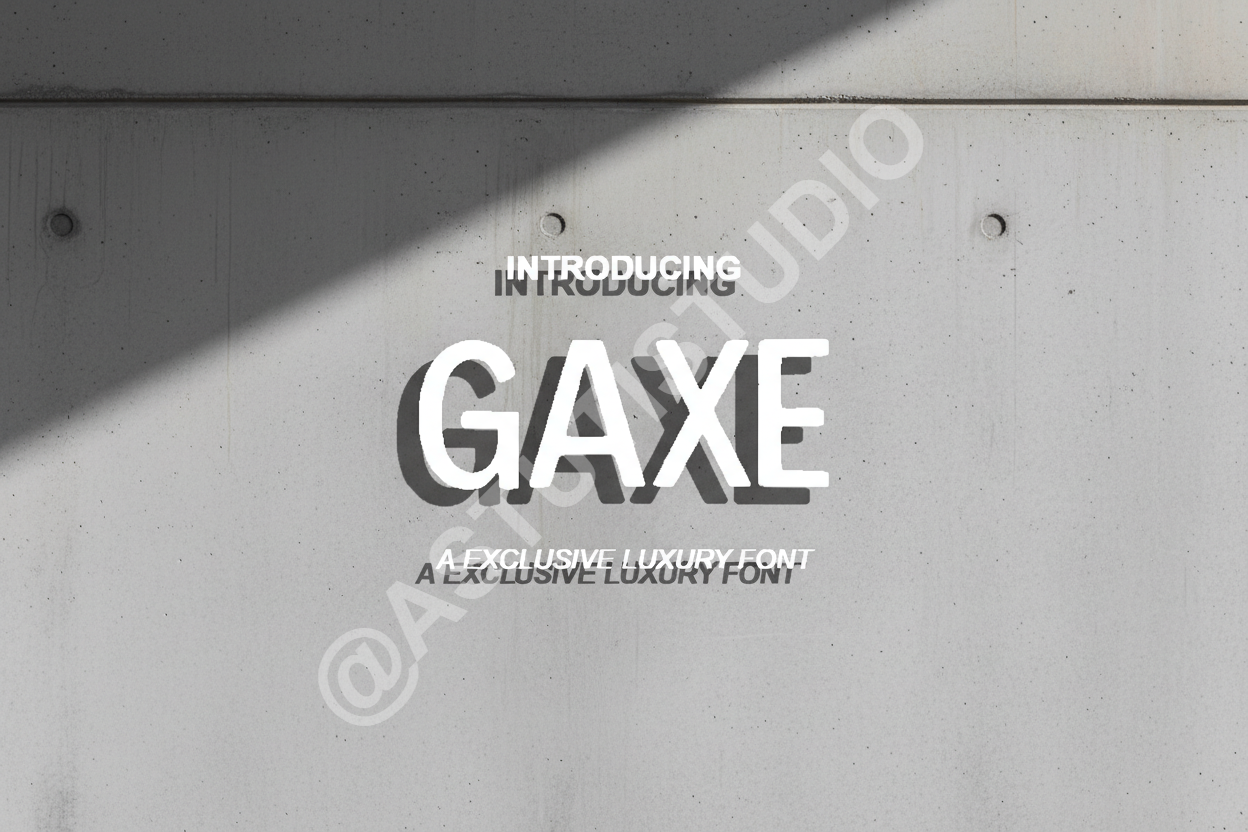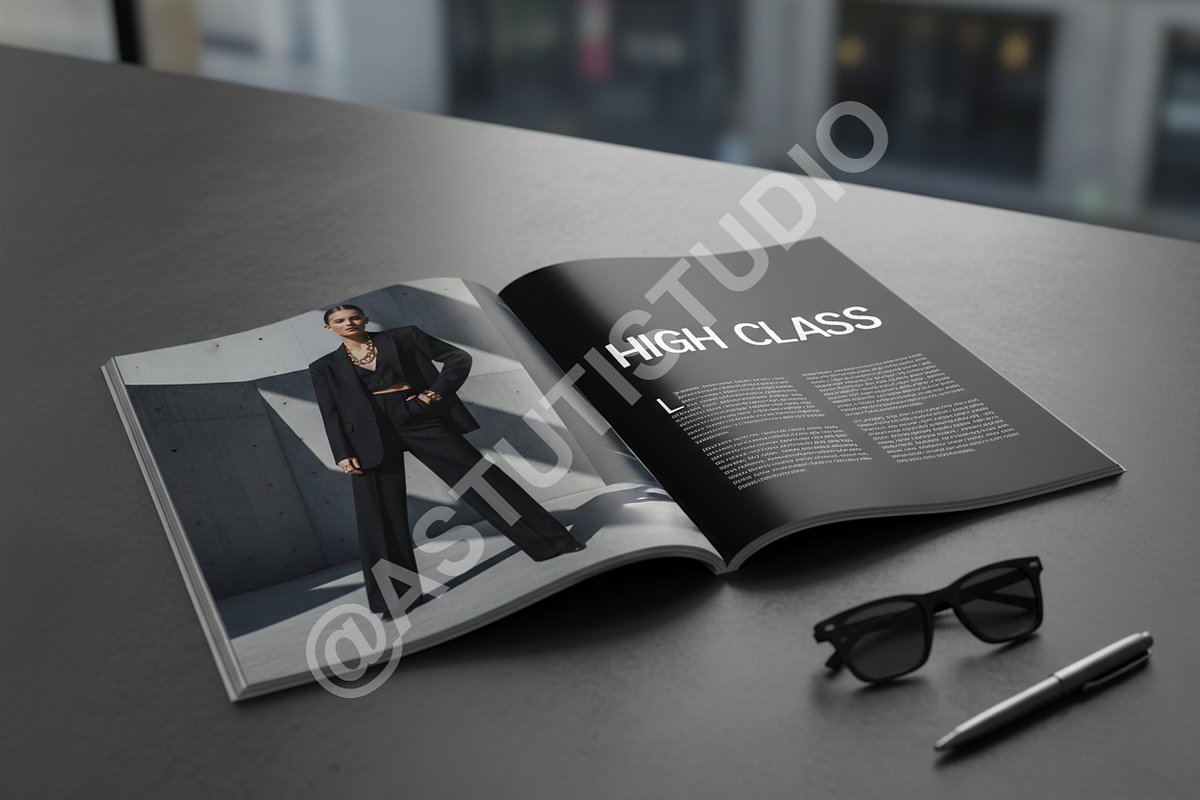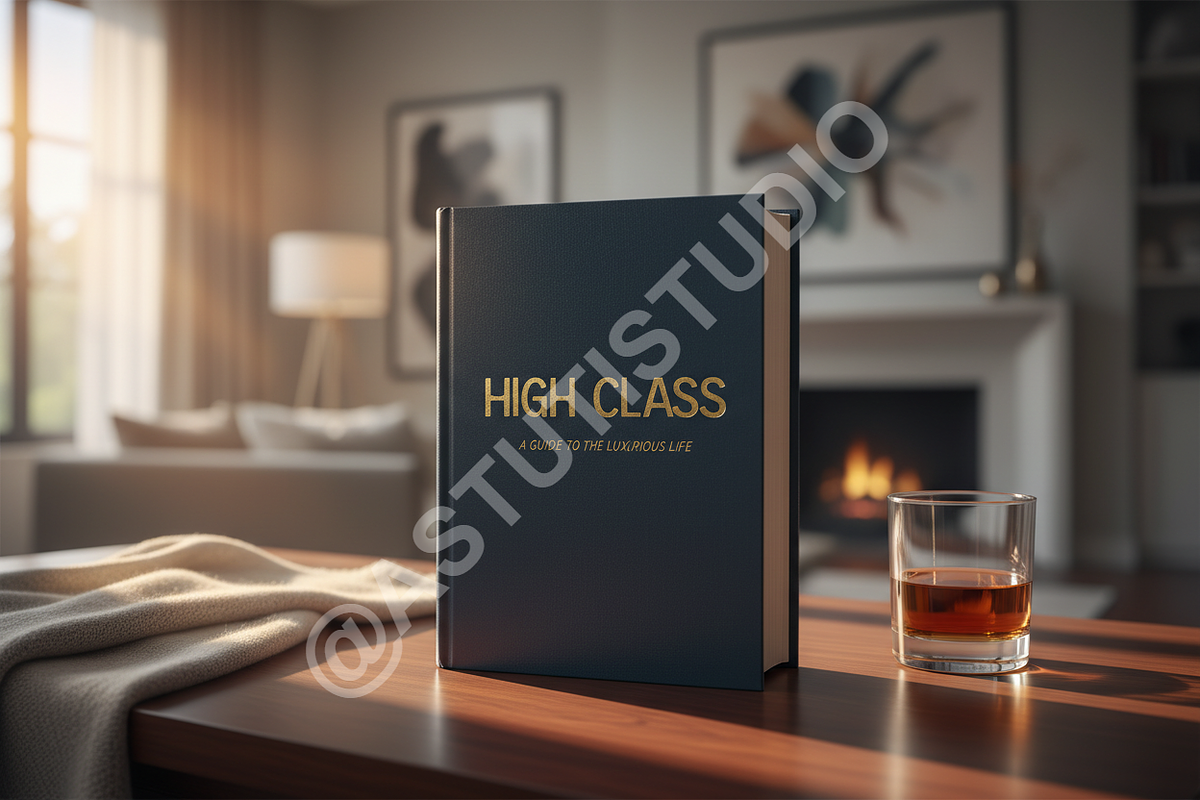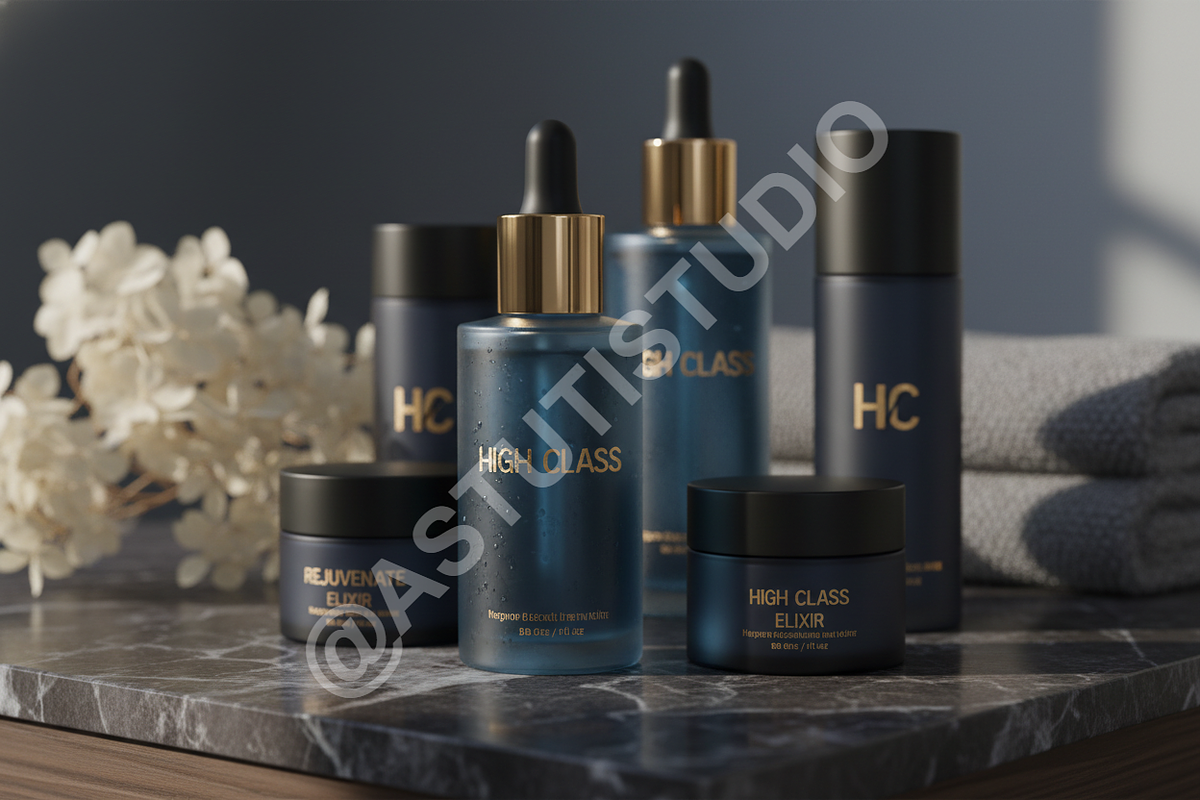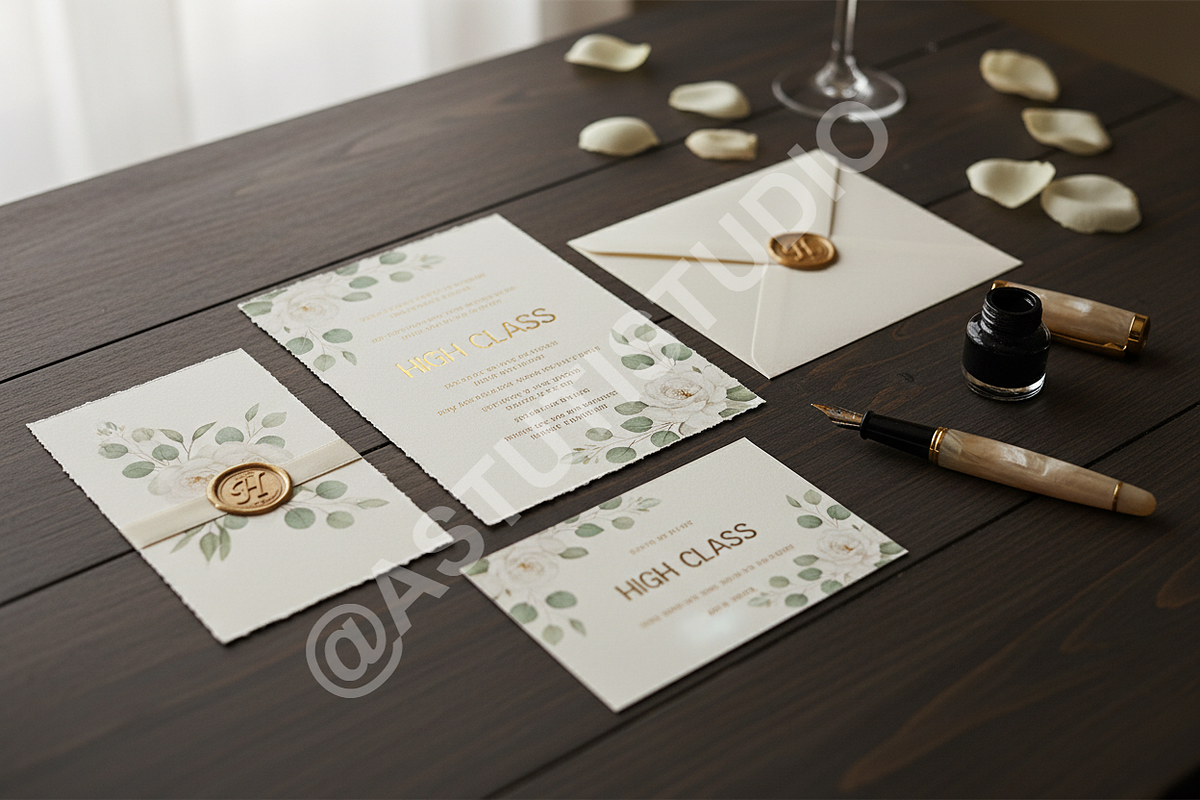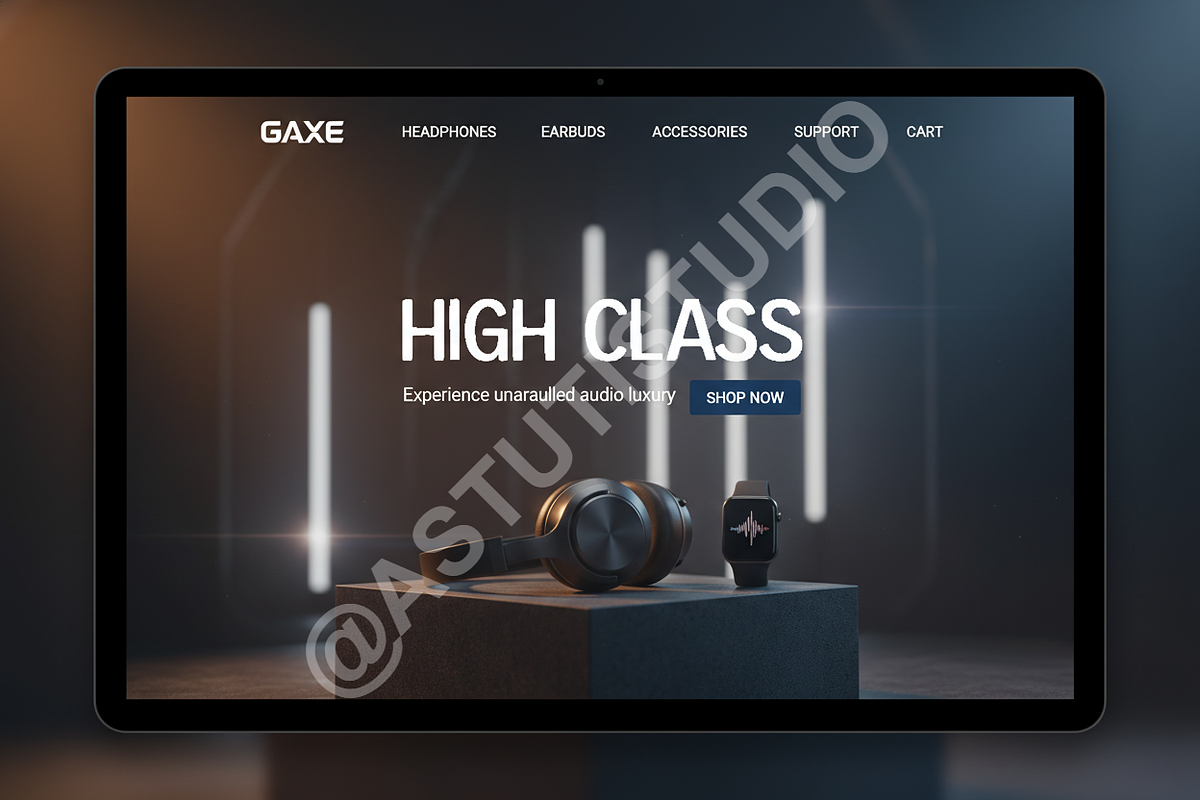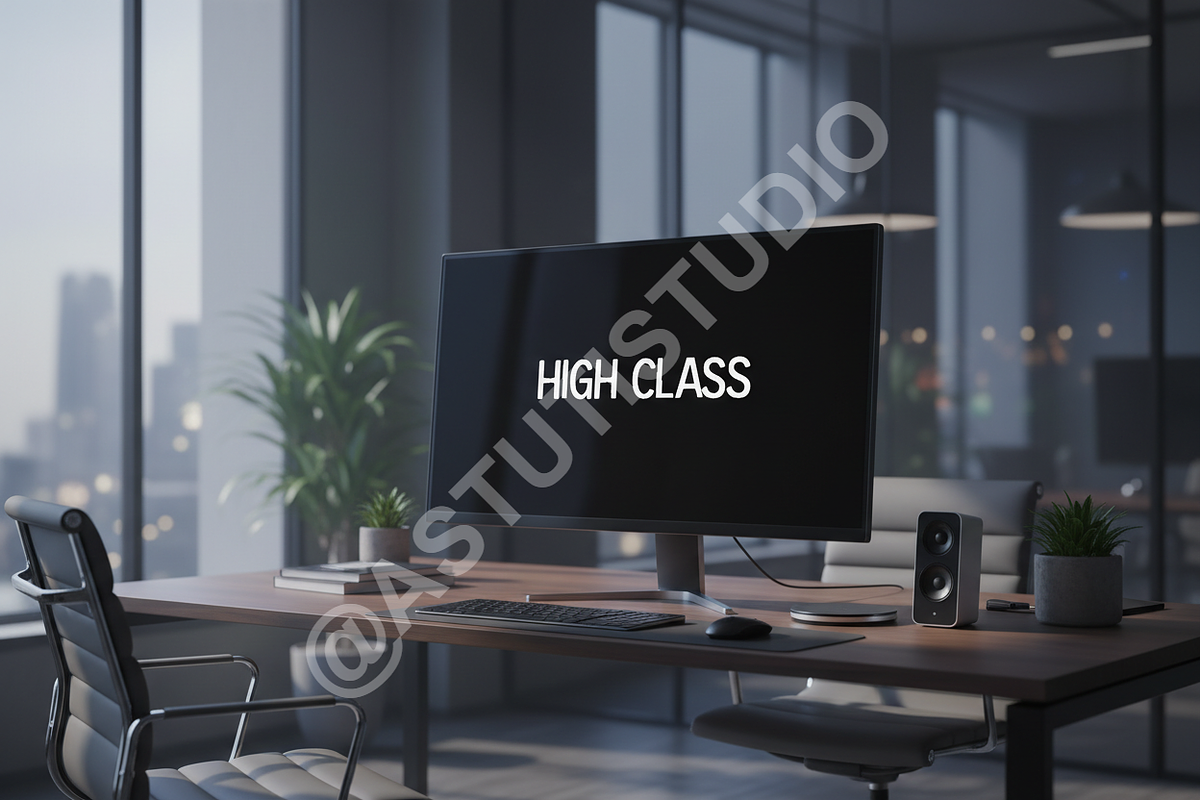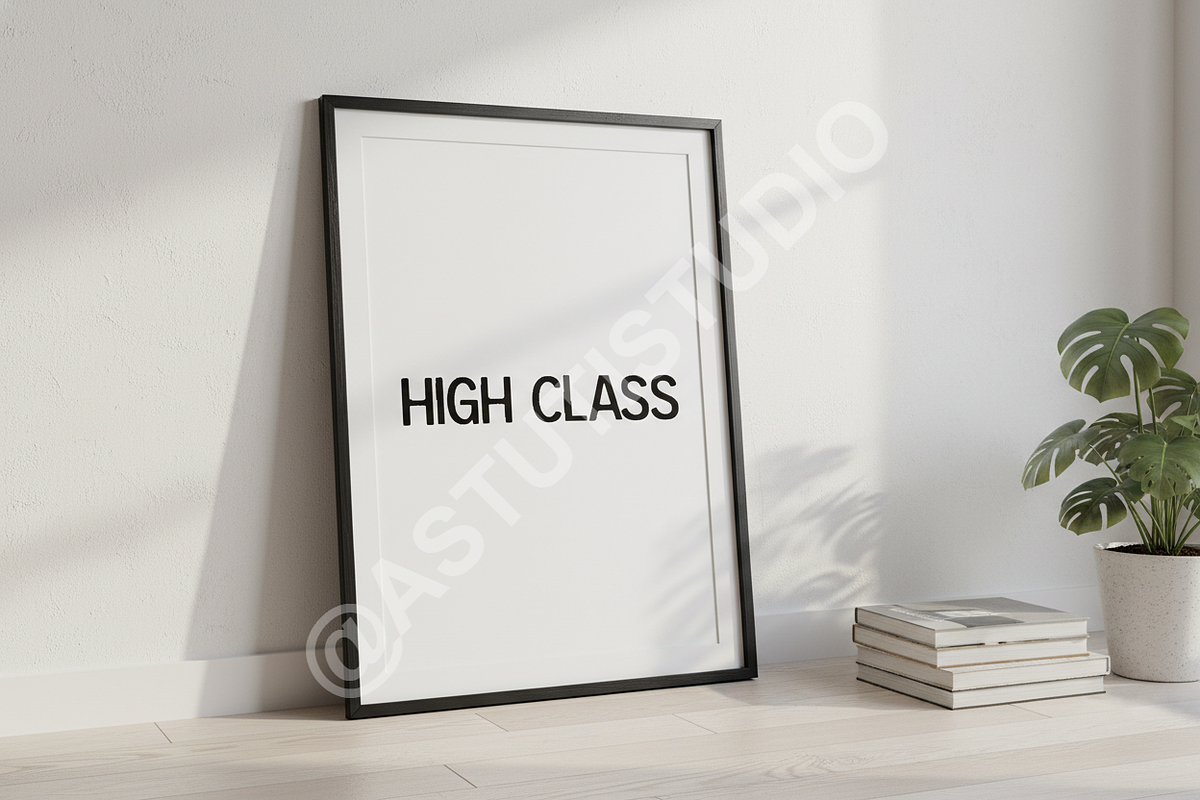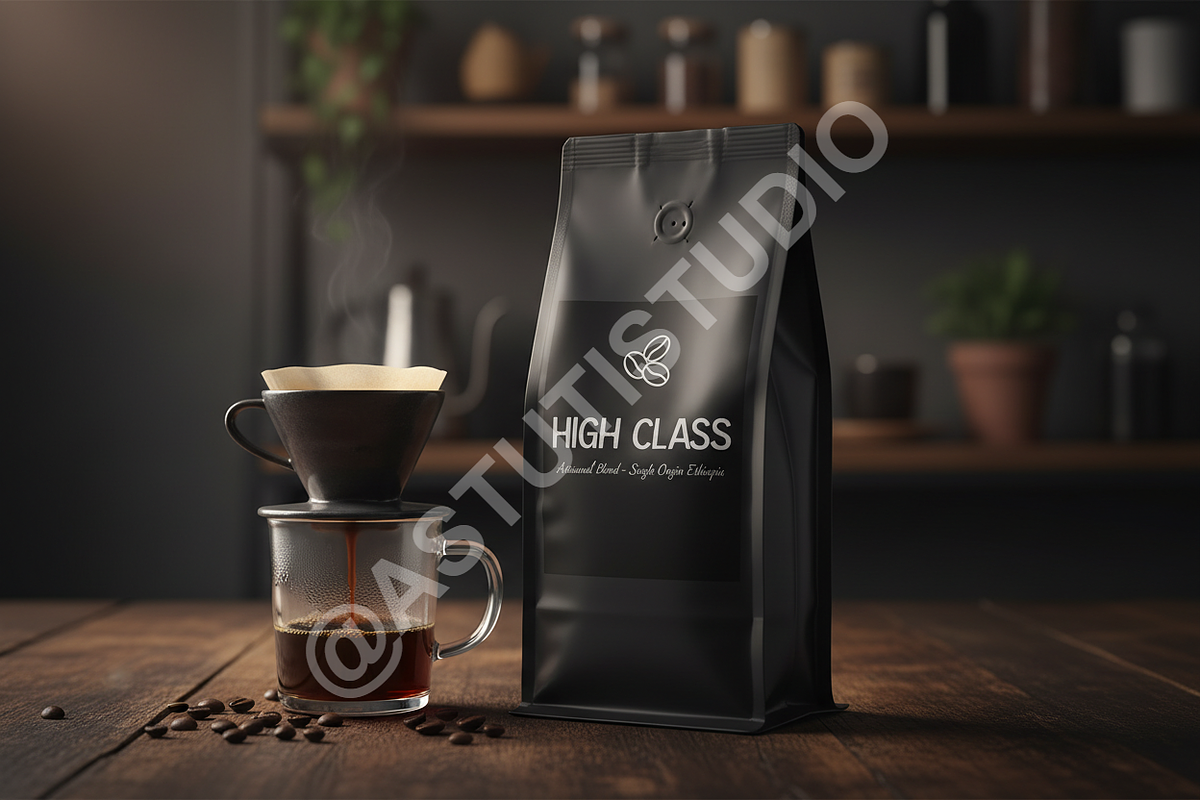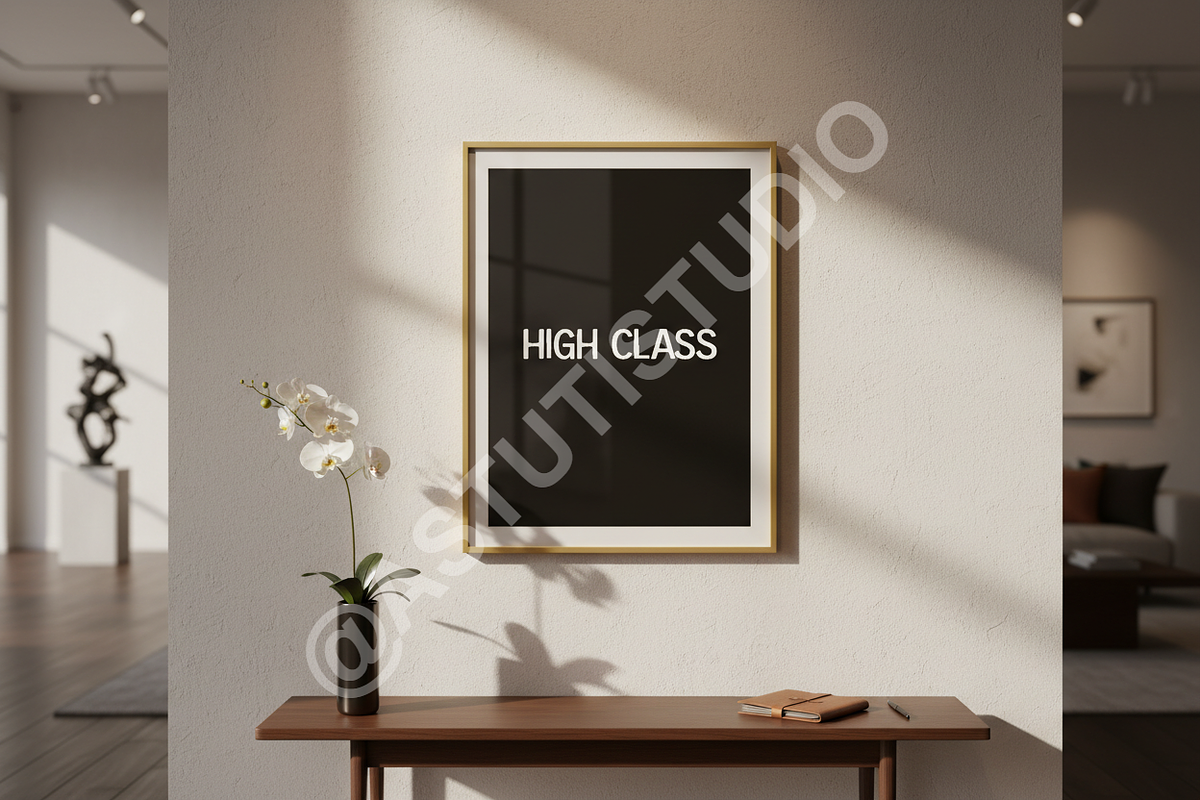
Gaxe - Elegant Serif Font for Luxury
Introducing Gaxe, an exquisitely crafted serif typeface designed to elevate your projects with unparalleled sophistication. Gaxe embodies a harmonious blend of classic elegance and modern refinement, making it the quintessential choice for luxury branding, high-end editorial layouts, and impactful social media visuals. Its distinctive character and timeless appeal ensure your designs communicate premium quality and refined taste.
- Refined and elegant letterforms for a sophisticated aesthetic.
- Extensive ligatures and stylistic alternates to personalize your typography.
- Comprehensive multilingual support to broaden your global reach.
- Optimized for both print and digital applications, from opulent magazines to engaging web content.
- A versatile design that seamlessly complements a wide range of creative briefs.
- Uppercase & Lowercase Characters
- Ligatures & Stylistic Alternates